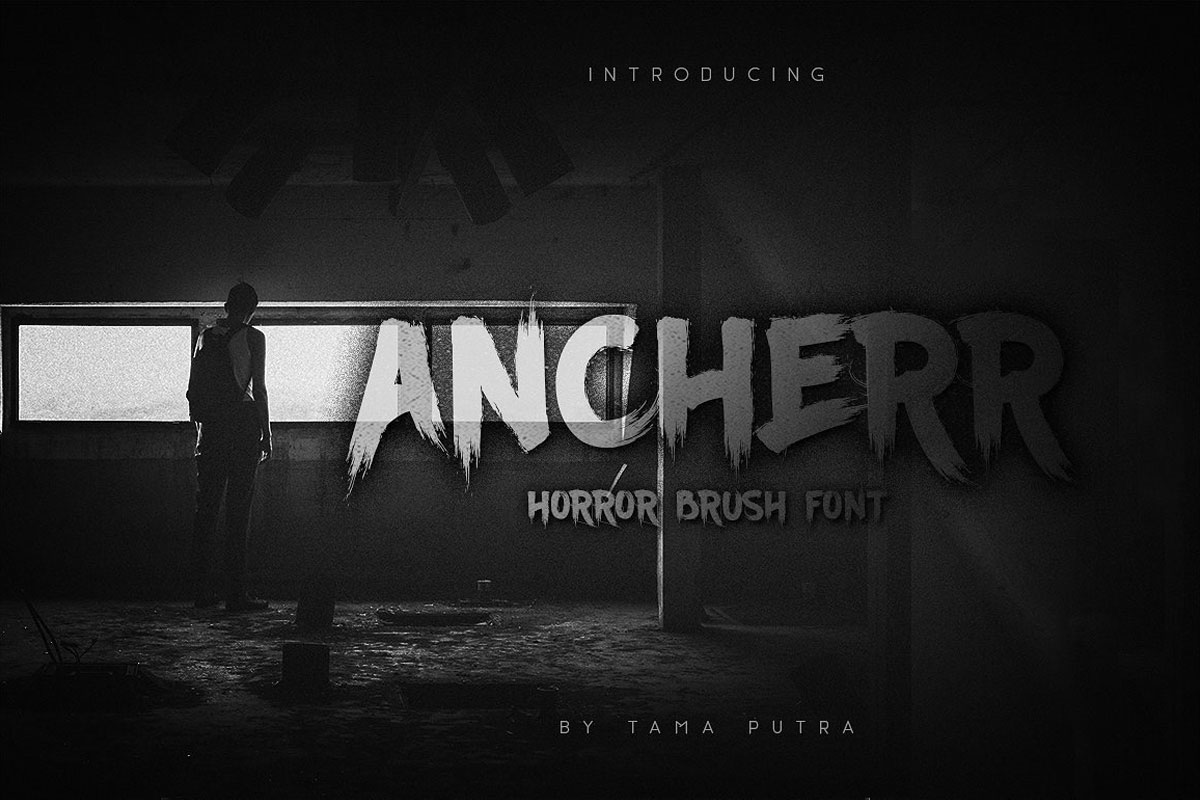
Free Ancherr Brush Font is a horror brush font coming from Tama Putra. It includes lowercase, numerals, punctuation, currency, and support multilingual. It looks perfect with signature, logos, wedding invitations, website, headline, letterheads, nameplate, labels, bulletins, posters, quotes, badges, branding, greeting cards, and all product design other.